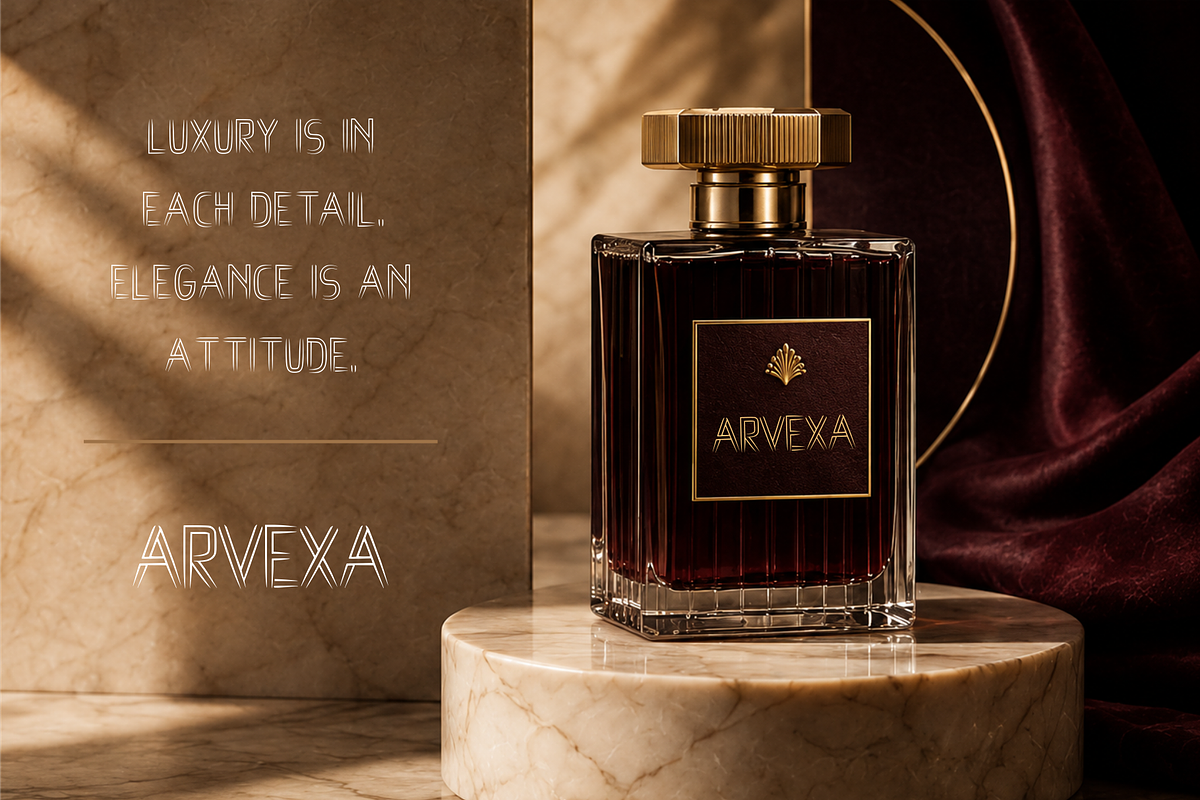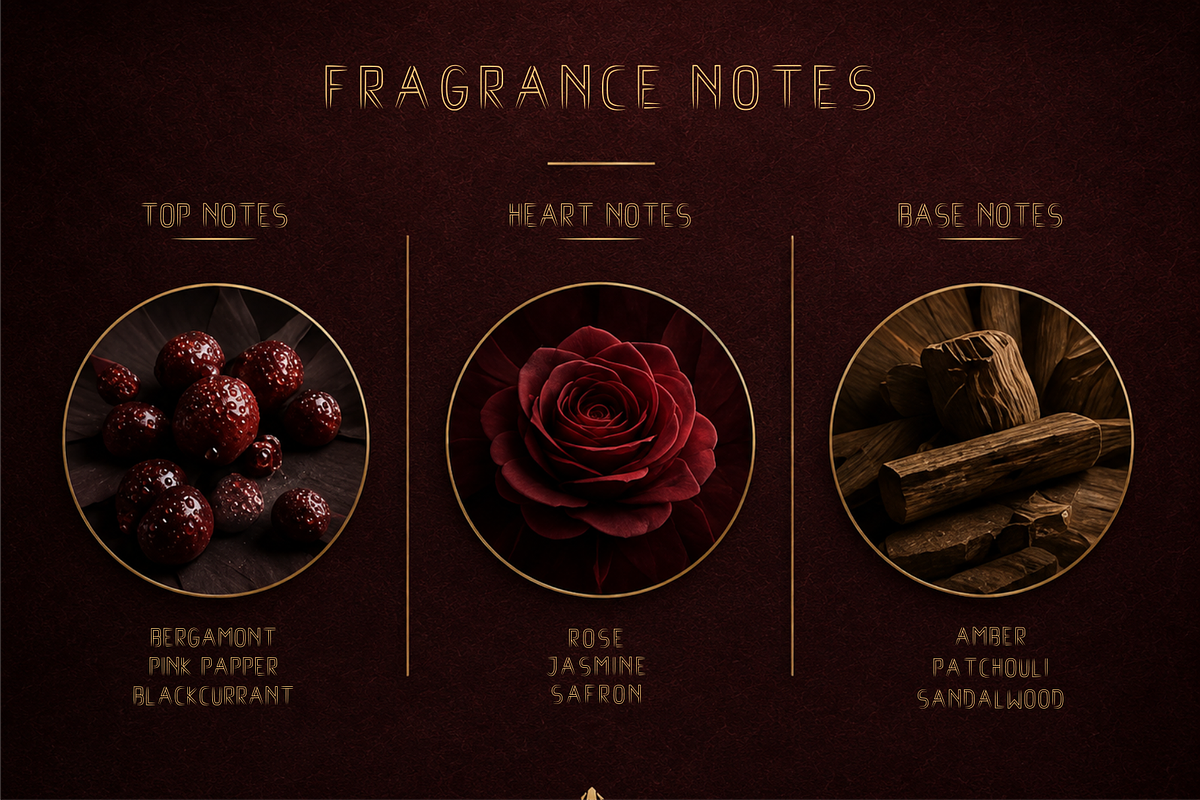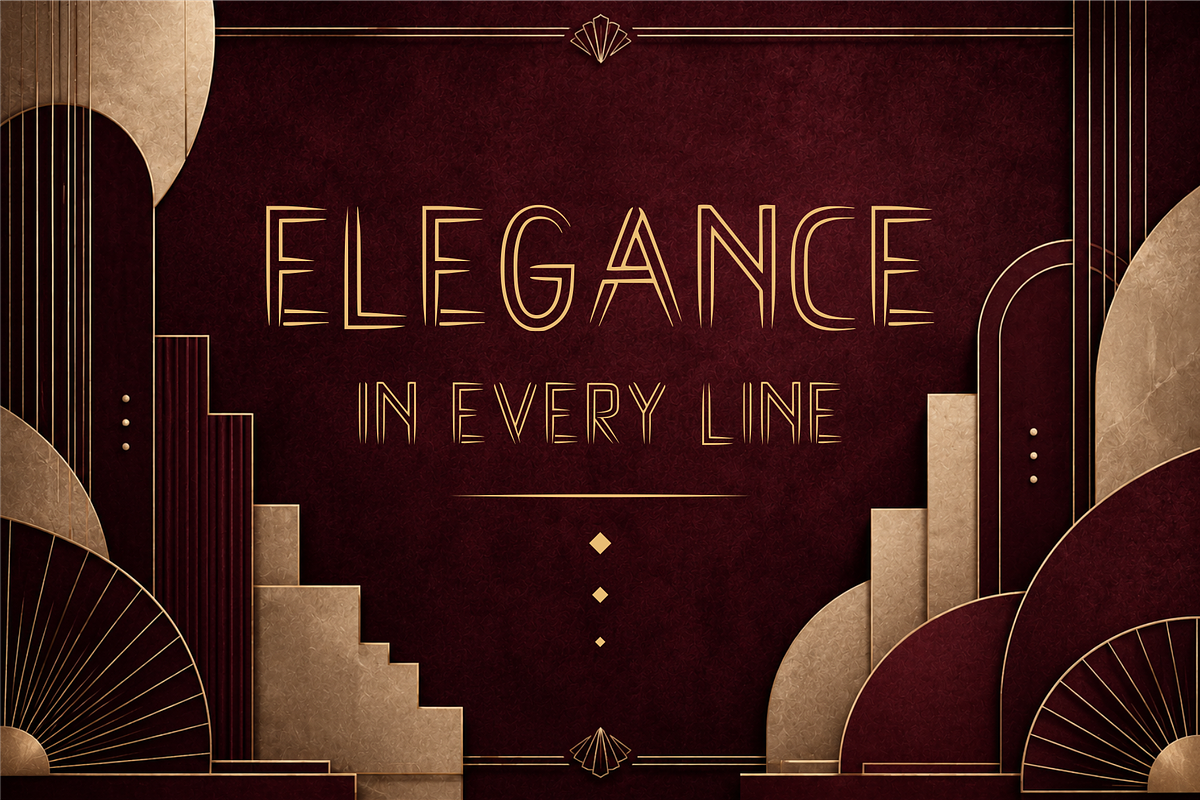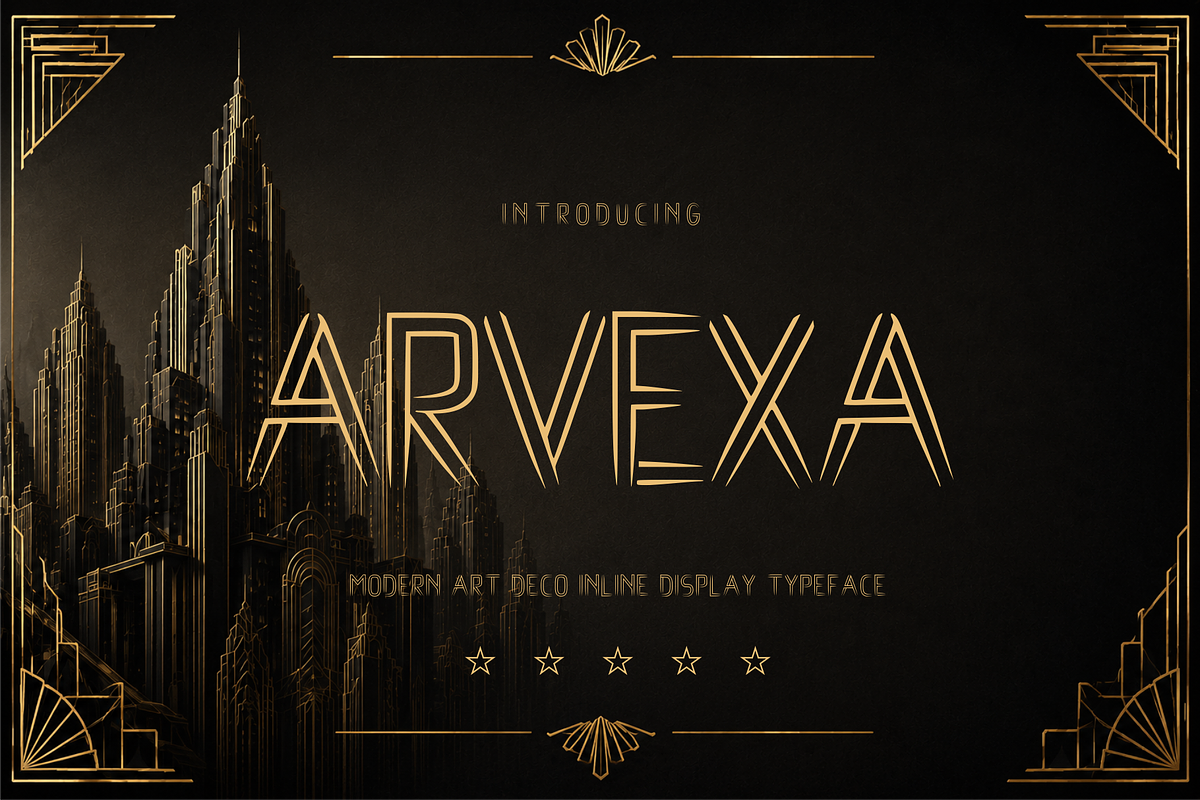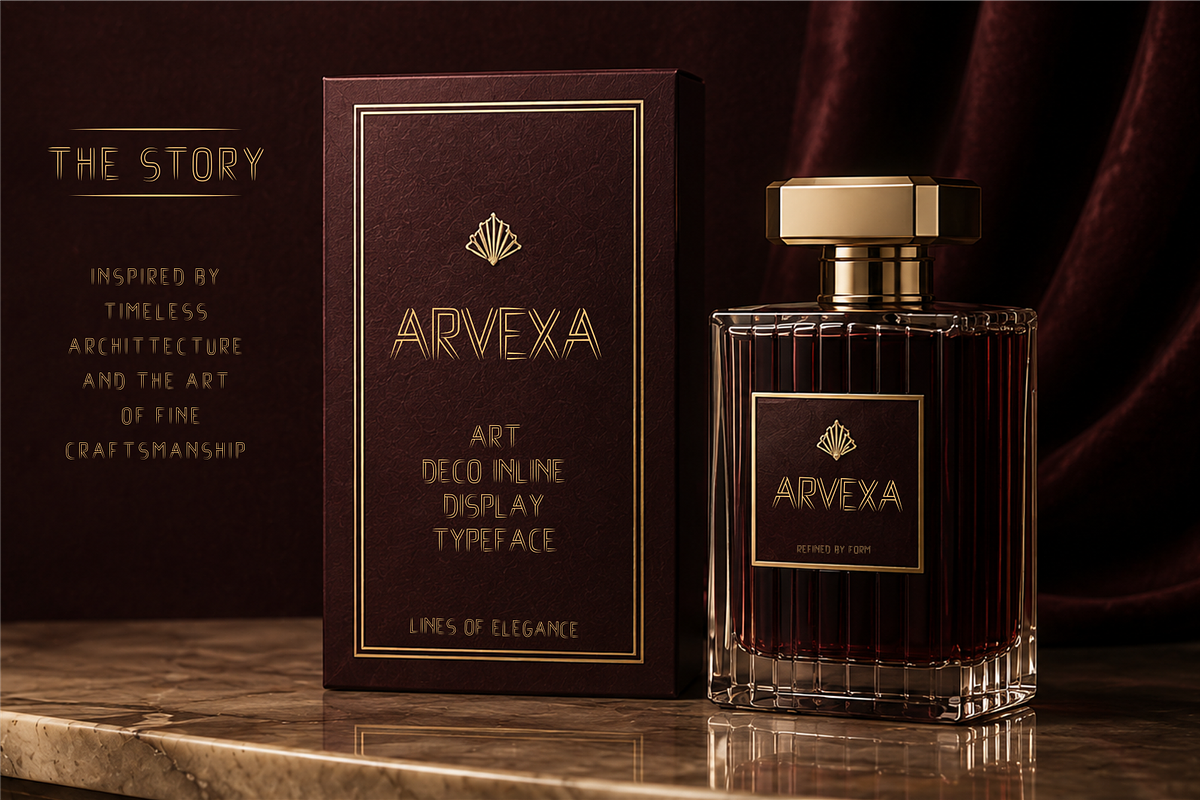
ARVEXA — Art Deco Inline Display
ARVEXA — Art Deco Inline Display Typeface
ARVEXA is a distinctive Art Deco Inline Display Typeface inspired by the elegance, glamour, and architectural geometry of the Art Deco era. Its tall, elongated letterforms combine sharp geometric structures with refined inline details, creating a sophisticated and luxurious visual identity.
Designed to make a statement, ARVEXA features sleek lines, angular forms, and decorative inline construction that give each character a unique architectural appearance. The result is a typeface that feels both vintage and contemporary, making it ideal for high-impact display typography.
ARVEXA is perfect for luxury branding, fashion logos, perfume packaging, jewelry, editorial layouts, posters, invitations, hotel branding, event identities, signage, and premium product designs.
Its elegant geometric character works especially well in large headlines, logos, titles, and short phrases, where the distinctive letterforms can become the main visual element of the design.
Art Deco inspired design
Elegant inline letterforms
Geometric and architectural structure
Tall and sophisticated proportions
Distinctive decorative details
Luxury and premium aesthetic
Ideal for large display applications
ARVEXA — A refined fusion of Art Deco elegance, geometric precision, and modern luxury.